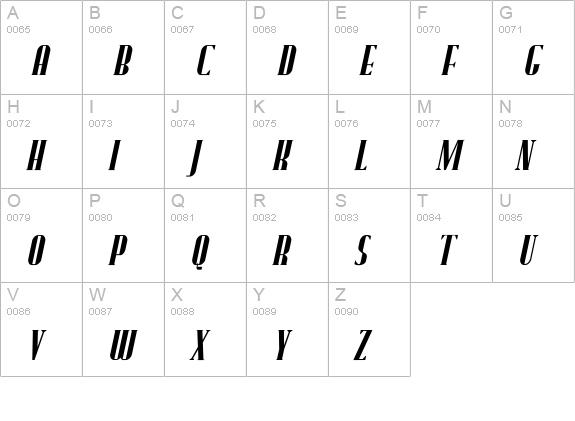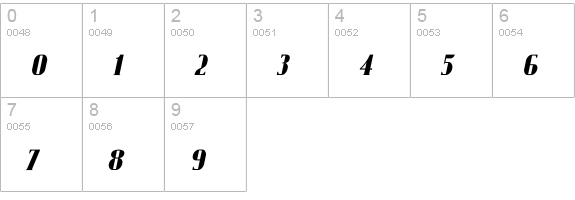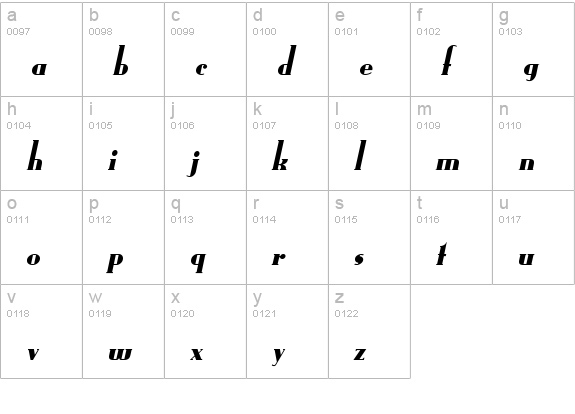
FundRunk-Italic Font Details
FundRunk-Italic is a distinctive, italic variant in the FundRunk typeface family \xE2\x80\x94 well suited to design and typography projects.
FundRunk-Italic is a sleek and stylish font that exudes elegance and sophistication. With its slanted and italicized design, this font is perfect for adding a touch of flair to any project. Whether you're designing a logo, creating invitations, or crafting a brand identity, FundRunk-Italic is sure to make a statement. The smooth curves and clean lines of this font give it a modern and professional look that is bound to impress. The best part? FundRunk-Italic is completely free to download at FontsMarket.com. Yes, you read that right - you can get your hands on this stunning font at no cost at all. So why wait? Elevate your designs with FundRunk-Italic and bring your creative visions to life today!